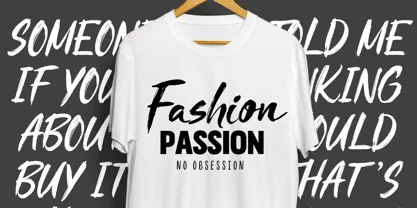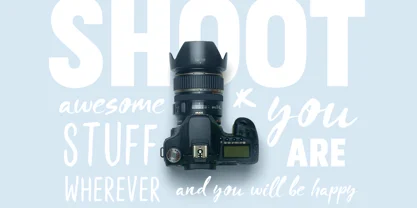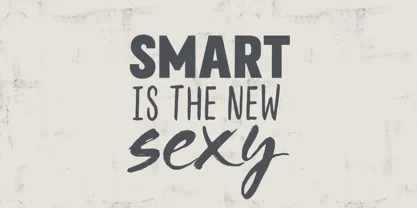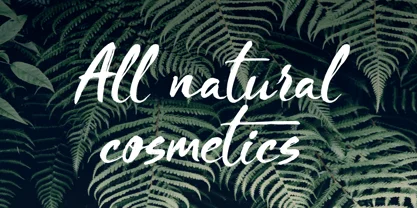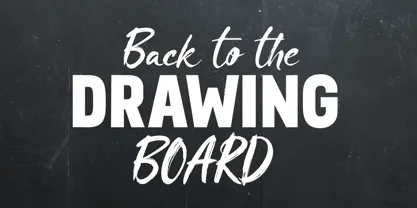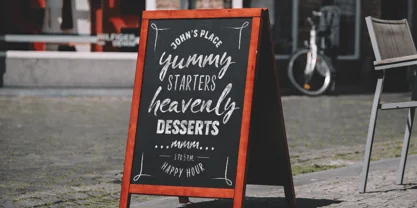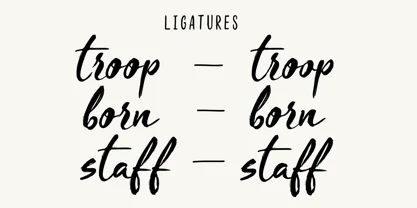
Blooms Script Font Font
There is a particular satisfaction in finding a typeface that delivers a confident voice that adapts to diverse briefs without compromise. Blooms Script consistently provides it. The typeface brings an elegant, calligraphic sensibility to a broad range of creative disciplines, with versatility across print and screen contexts that holds up whether the work is print-first or screen-first.
In practice, Blooms Script proves particularly effective for greeting cards, packaging design, boutique logos, event signage, social media graphics. Designers reaching for it find that the type decisions feel resolved rather than laboured — a useful quality when client timelines are tight.
The range of applications extends to web design, logo design, luxury stationery, fashion editorials. That breadth is deliberate: the proportions and spacing were stress-tested across a wide range of mock briefs before the typeface was finalised.
Independent studios handling packaging and editorial work find Blooms Script a reliable choice for projects that demand both personality and restraint. The design avoids the self-conscious quirkiness that dates quickly, settling instead for considered distinctiveness that holds up over time.